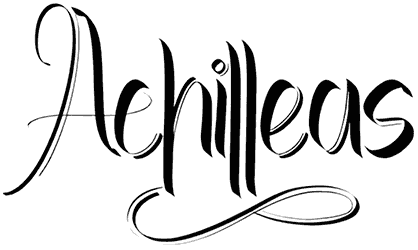
Achilleas Font
Without exaggeration, words with a natural vibe are one of the most attractive scripts. This magic font with two styles can be a delightful illustration to seem swish and contemporary. Achilleas doesn’t have numbers and punctuation marks, but for banners, covers, postcards, planners, and a lot more others the same will be a catchy and cool display.